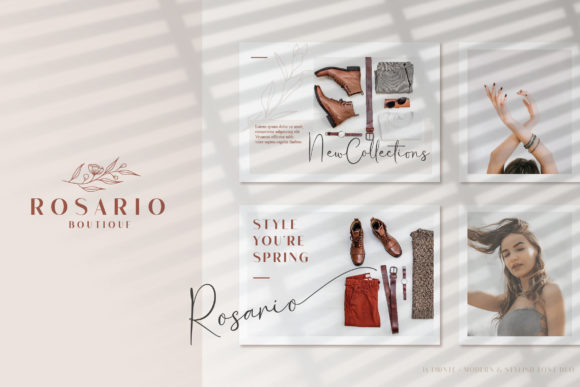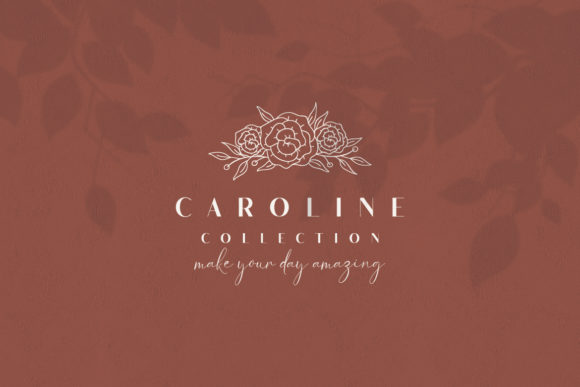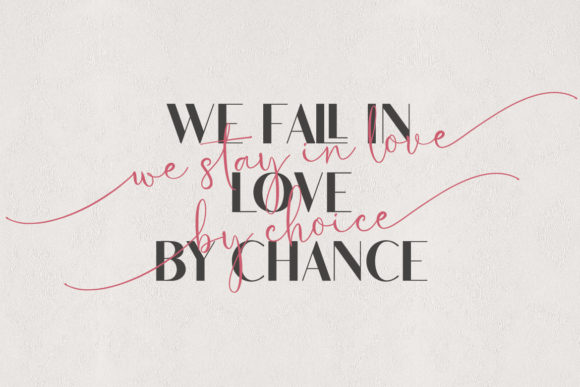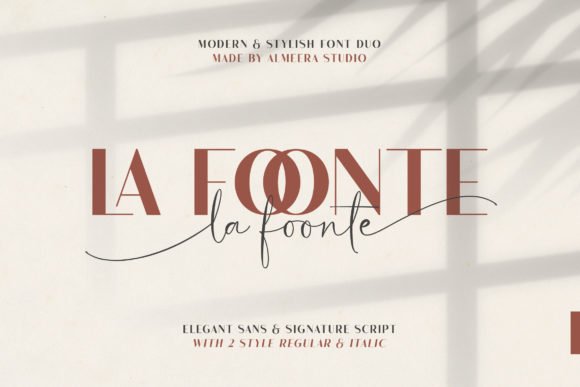
Introduction to La Foonte Font
La Foonte is a lovely display font duo, perfect for branding, logos, invitations, signatures, crafting and more.
This font is PUA encoded which means you can access all of the wonderful glyphs and swashes with ease It also features a wealth of special features including alternate glyphs and ligatures.
La Foonte Font offers exceptional quality and versatility, making it a valuable addition to your design toolkit. Whether you’re creating for personal projects or commercial use, La Foonte Font delivers professional results.